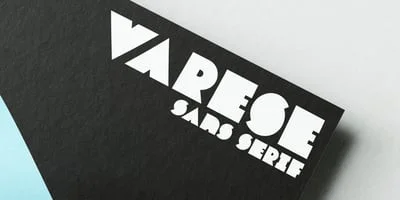
Varese Font
Varese Font is perfect for Italian luxury branding, Mediterranean restaurant menus, European fashion labels, Alpine tourism marketing, Northern Italian wine estates, and sophisticated European design projects. Its refined character makes it ideal for Italian cultural centers, luxury Italian leather goods, artisanal pasta makers, lakeside resort hotels, and any application requiring elegant typography that conveys Italian sophistication, European luxury, and the timeless charm of Northern Italian lake regions.
Varese Font is exciting because it captures the sophisticated elegance and refined beauty of Northern Italian lake culture through gracefully crafted letterforms that evoke the serene luxury of Italian villa life. Its harmonious proportions and Mediterranean details reflect the cultured sophistication of Italian design heritage and the tranquil beauty of Alpine lake regions, making it perfect for brands seeking to convey authentic Italian luxury and European refinement. The font's Italian character transforms communications into celebrations of Mediterranean elegance.
Varese Font family includes Italian-inspired weight variations typically featuring Light, Regular, Medium, and Bold options with flowing italic styles that honor Italian typographic traditions. The family often incorporates European ornaments, Mediterranean flourishes, and refined character sets designed for luxury Italian applications, providing designers with comprehensive tools for creating authentic, Italian-focused typographic compositions.
When selecting Italian luxury typography solutions, Varese Font represents an exceptional choice for European elegance projects. This distinguished typeface brings instant Italian authenticity to any design, making it invaluable for Italian restaurants, luxury European brands, and tourism companies celebrating Mediterranean culture. Whether you're developing Italian culinary branding, creating luxury Alpine resort materials, or designing European fashion campaigns, Varese Font provides the Italian sophistication and Mediterranean elegance essential for capturing the essence of Northern Italian luxury in today's European-inspired marketplace.